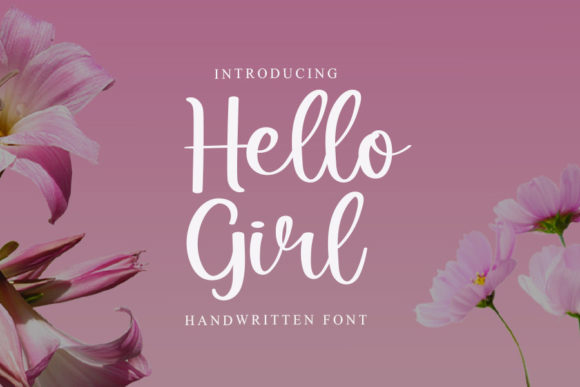
Unleash the allure of sophistication and elevate your designs with the captivating allure of the 'Hello, girl' font - the epitome of handwritten artistry. This masterpiece, meticulously orchestrated by the visionary K_IN studio, has been carefully curated to tantalize the eyes and ignite the imaginations of the modern creative.
Immerse yourself in the world of 'Hello, girl,' a script font that exalts the art of handwritten expression. It is a symphony of graceful lines and alluring forms, reminiscent of a by gone era when pen met paper and words danced across the page with an air of timeless grace.
With its unmistakable calligrapic overtones, 'Hello, girl' effortlessly blends the allure of tradition with a touch of modern freshness, creating an unforgettable visual impact that is sure to leave a mark on the world.
Indulge in the versatility of 'Hello, girl', a font that effortlessly adapts to a myriad of creative endeavors. Unleash your inner artist as you delve into the world of invitations, wedding stationery, social media posts, blog designs, product photography, business cards, and more. Let your words take center stage, adorned with the timeless beauty of 'Hello, girl.'